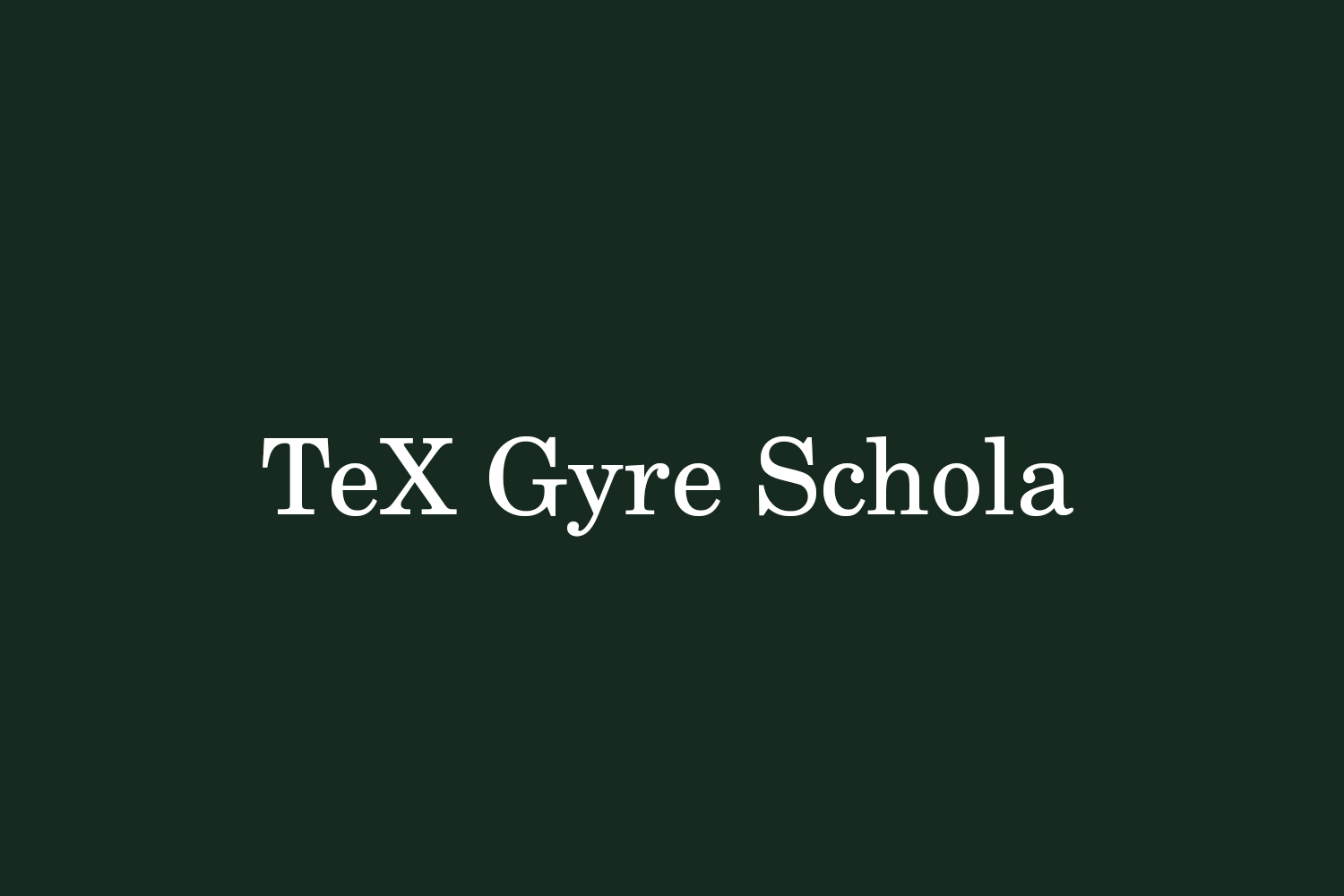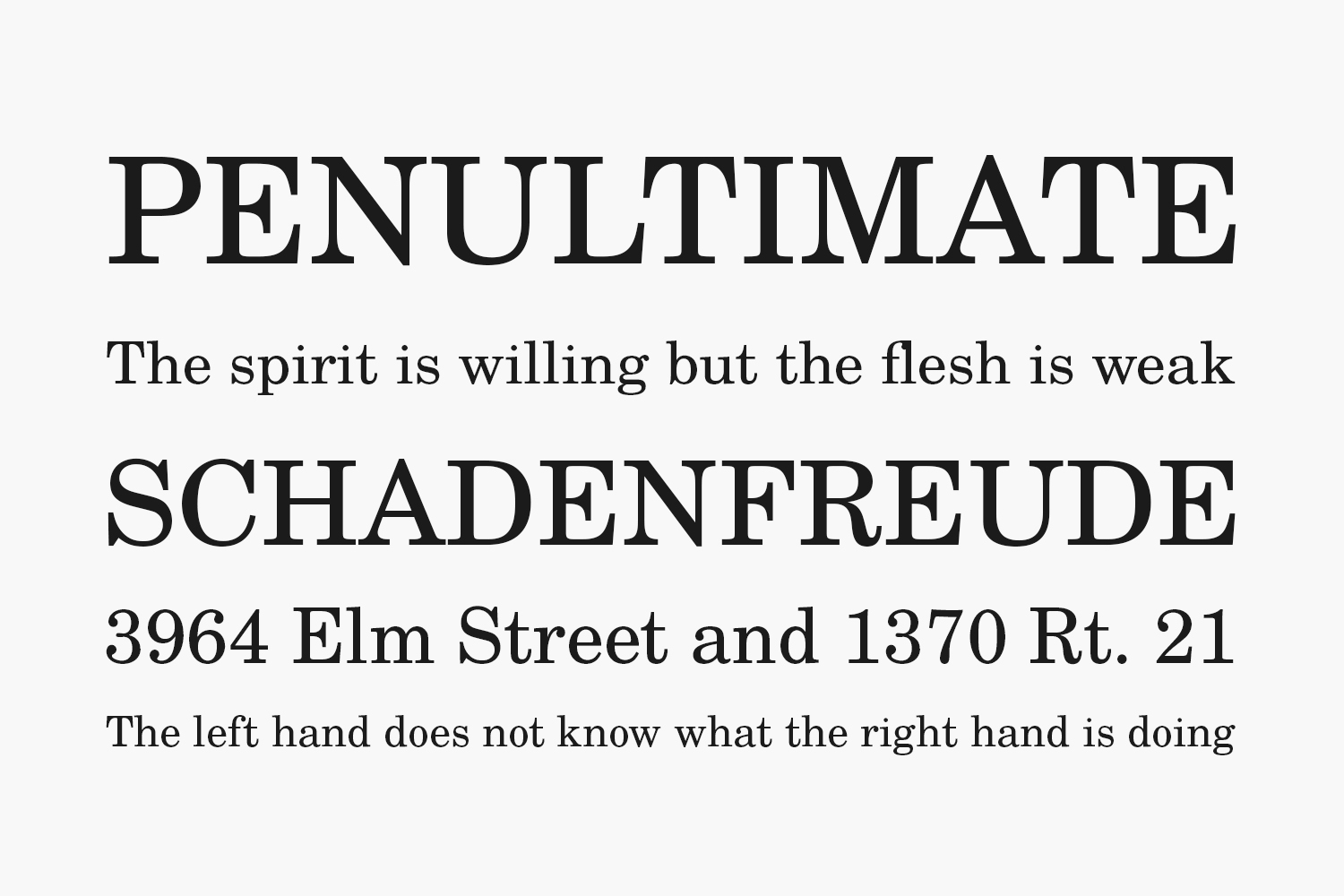
The TeX Gyre Schola Free Font Family of serif fonts is based on the URW Century Schoolbook L family distributed with Ghostscript. The original was designed by Morris Fuller Benton in 1919, for the American Type Founders. The constituent 4 standard faces contain nearly 1250 glyphs each.